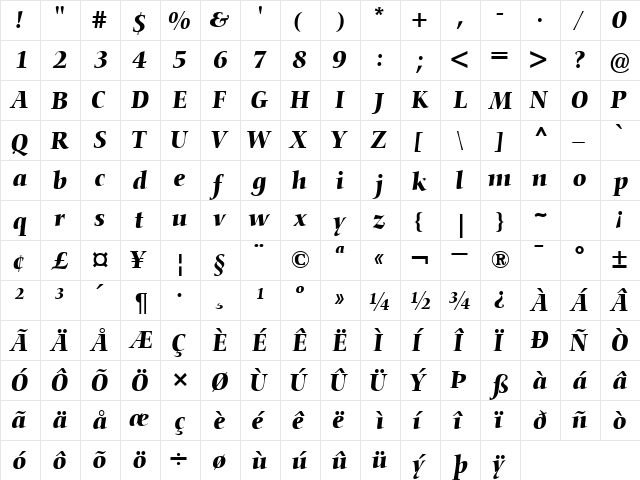
ConquistaSSK Italic Font Preview
ConquistaSSK Italic
Design Context for ConquistaSSK Typeface
ConquistaSSK is a composed and adaptable typeface that performs quietly and consistently across a wide range of design contexts. The slanted form adds forward momentum and visual energy.
Pro Tip: Try ConquistaSSK for annotation and caption copy alongside an upright companion — the contrast in angle creates a dynamic but ordered typographic system.